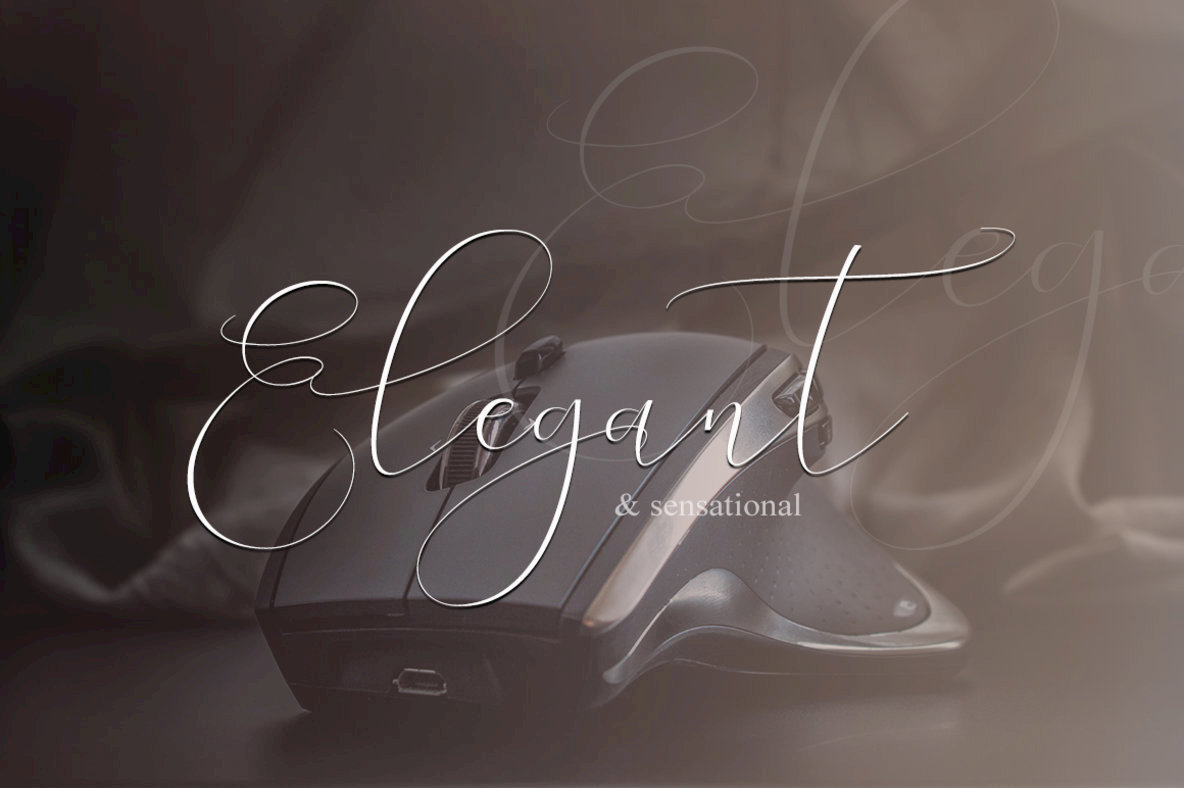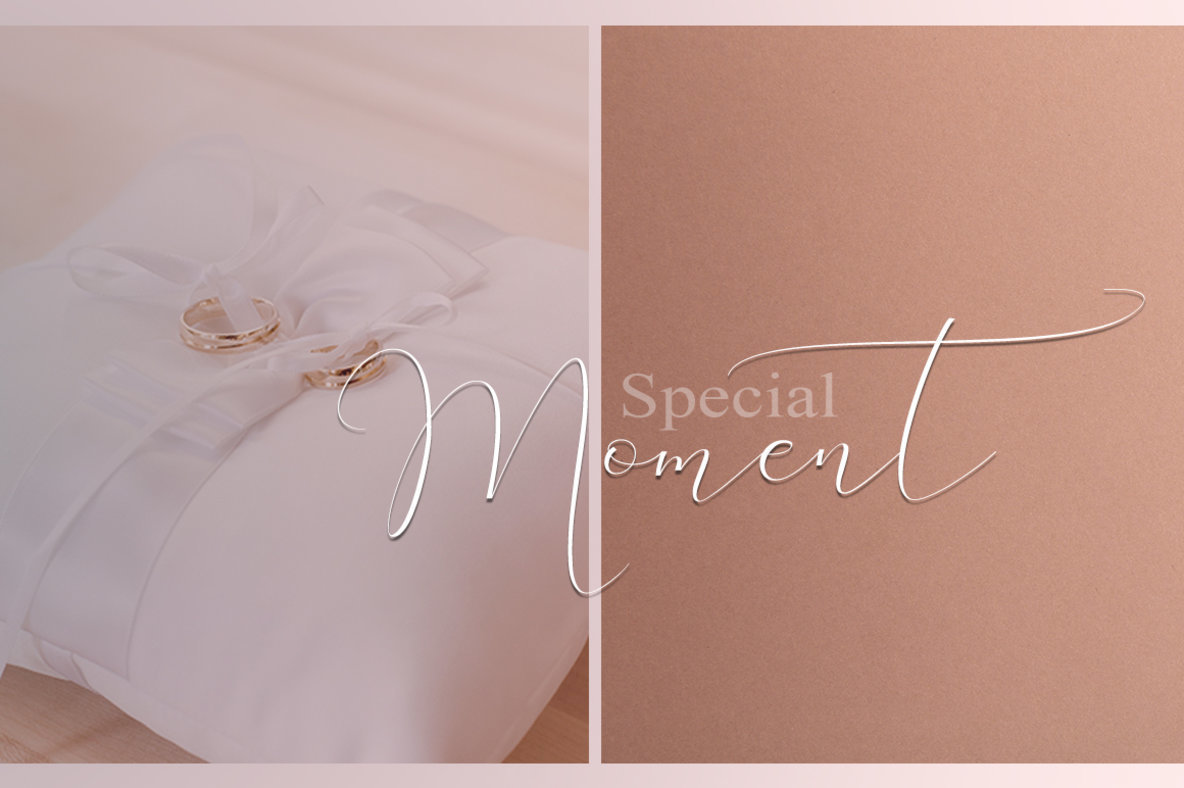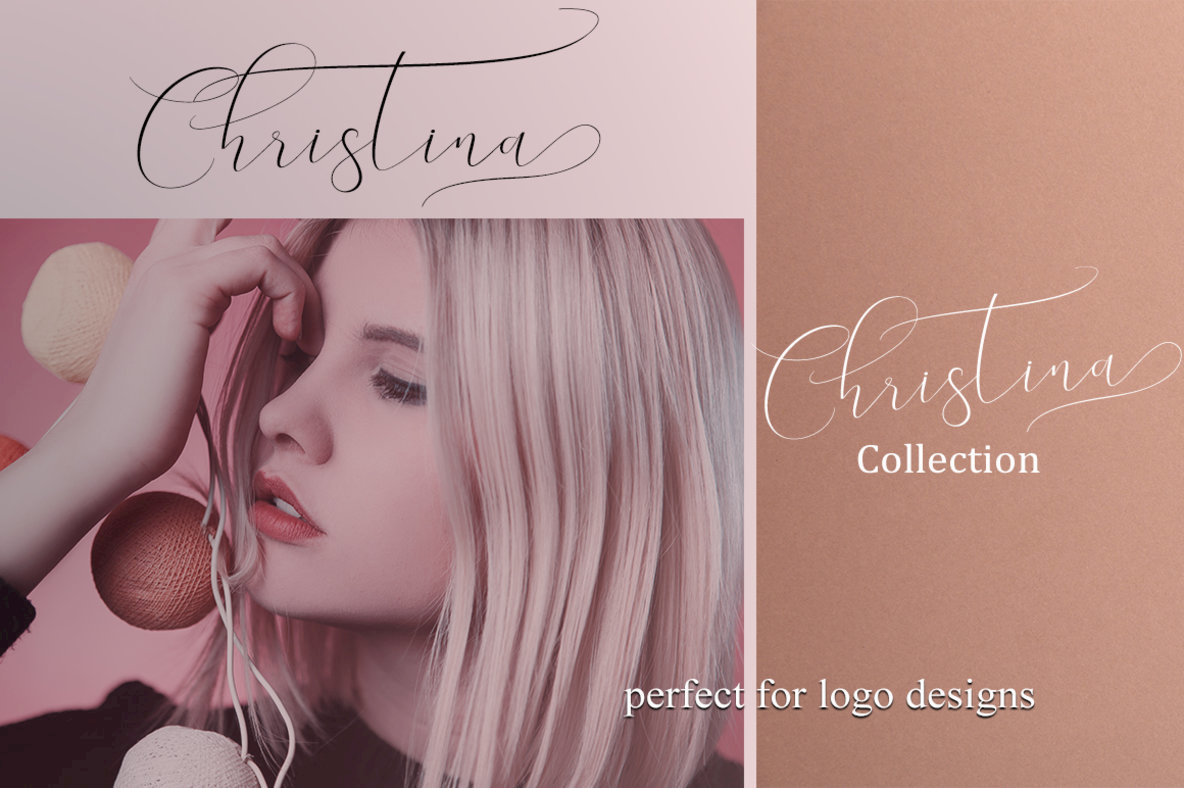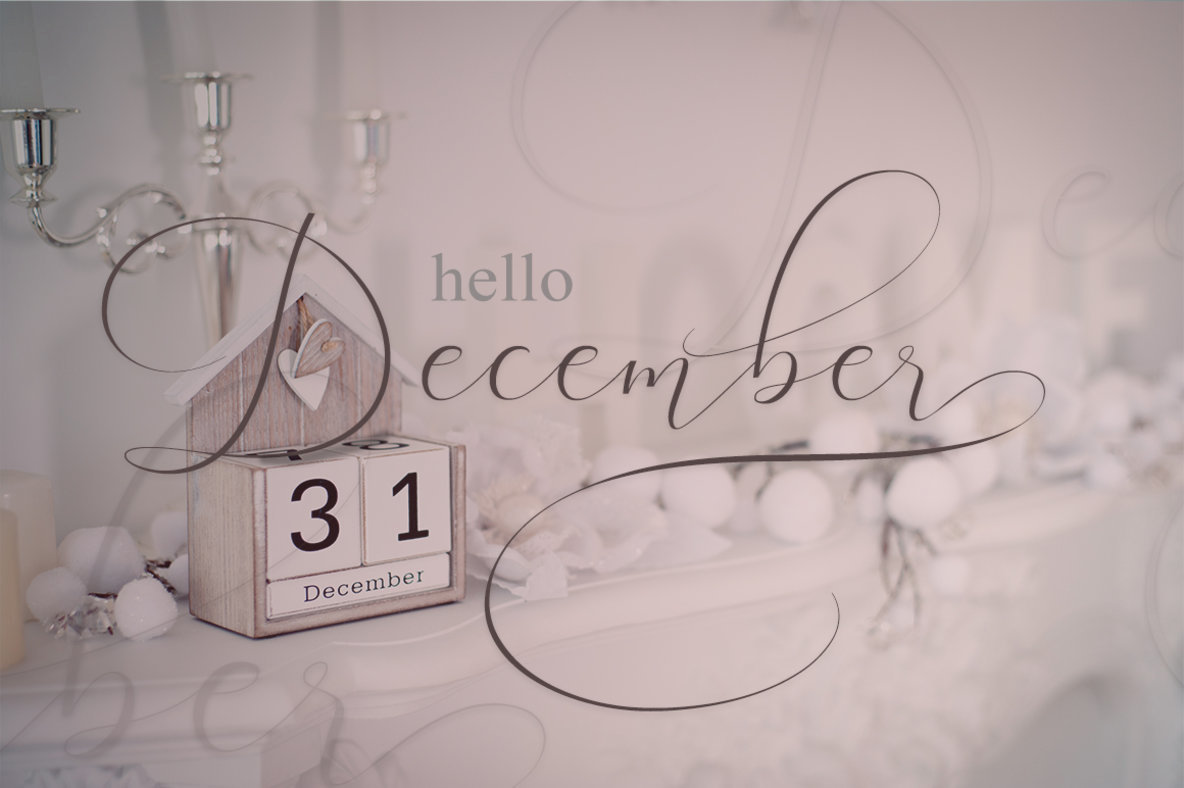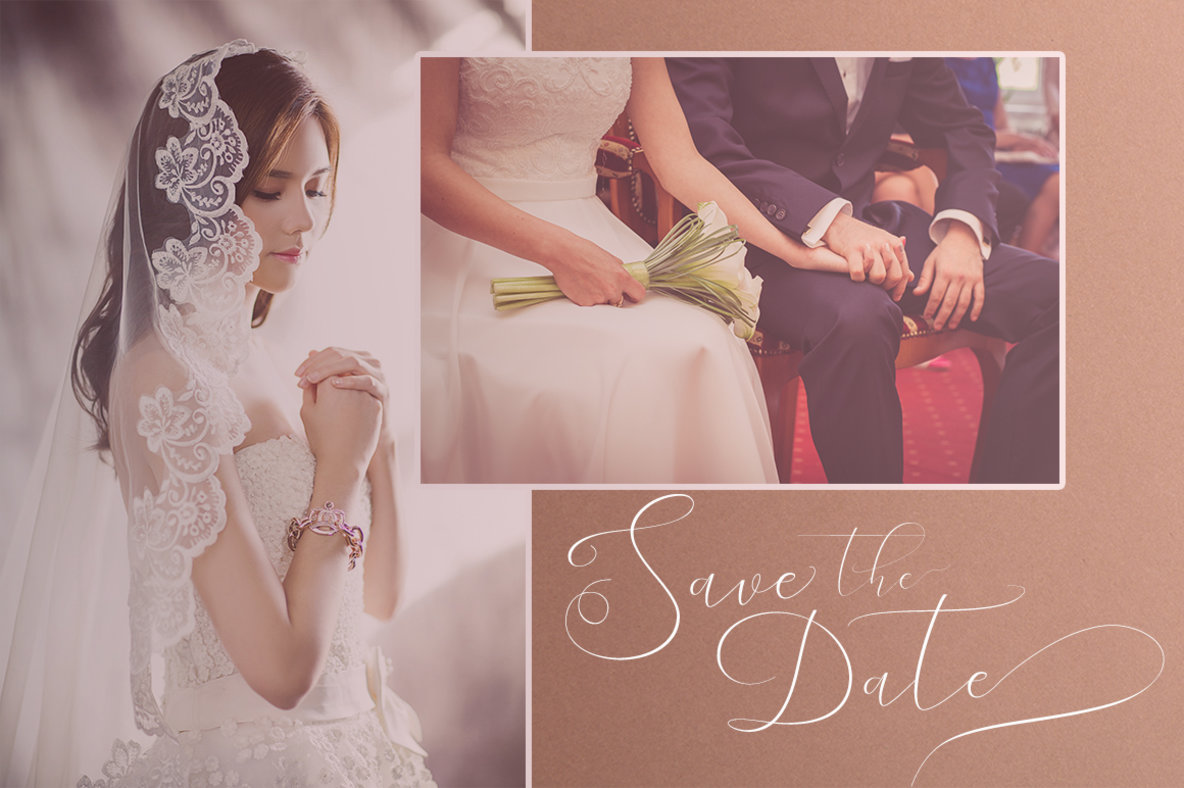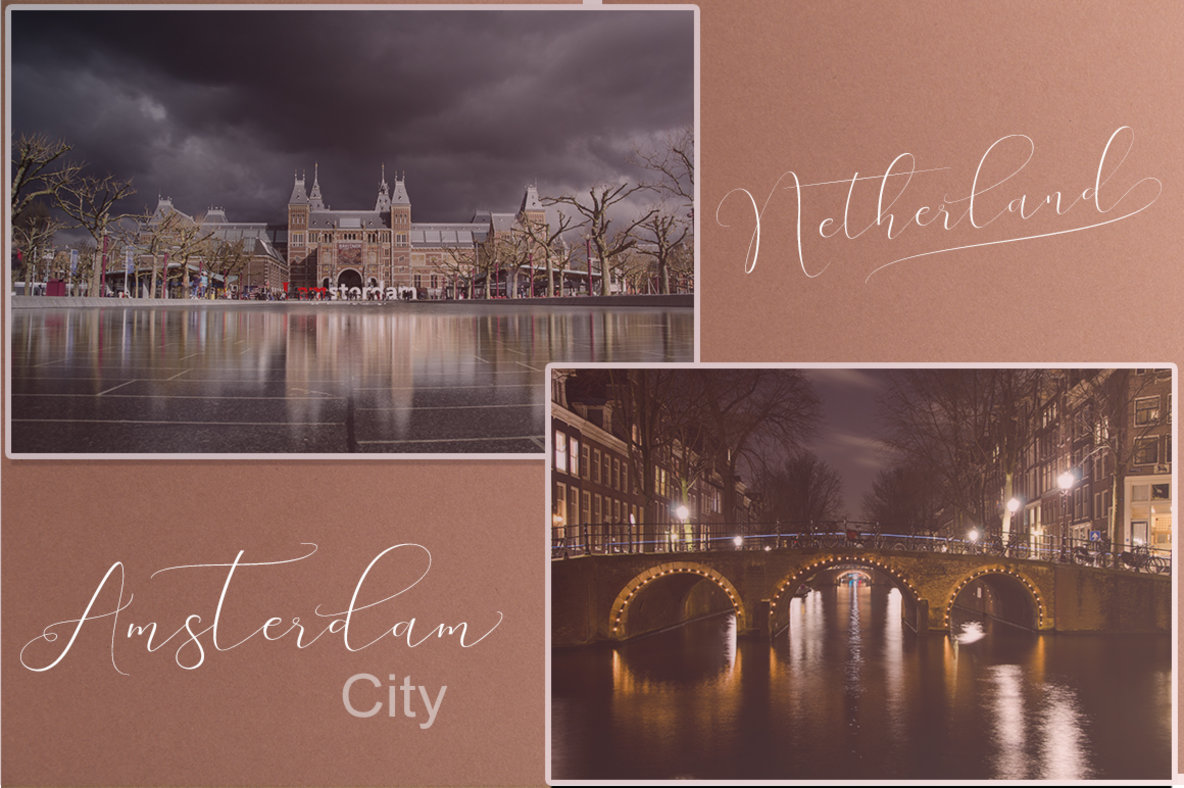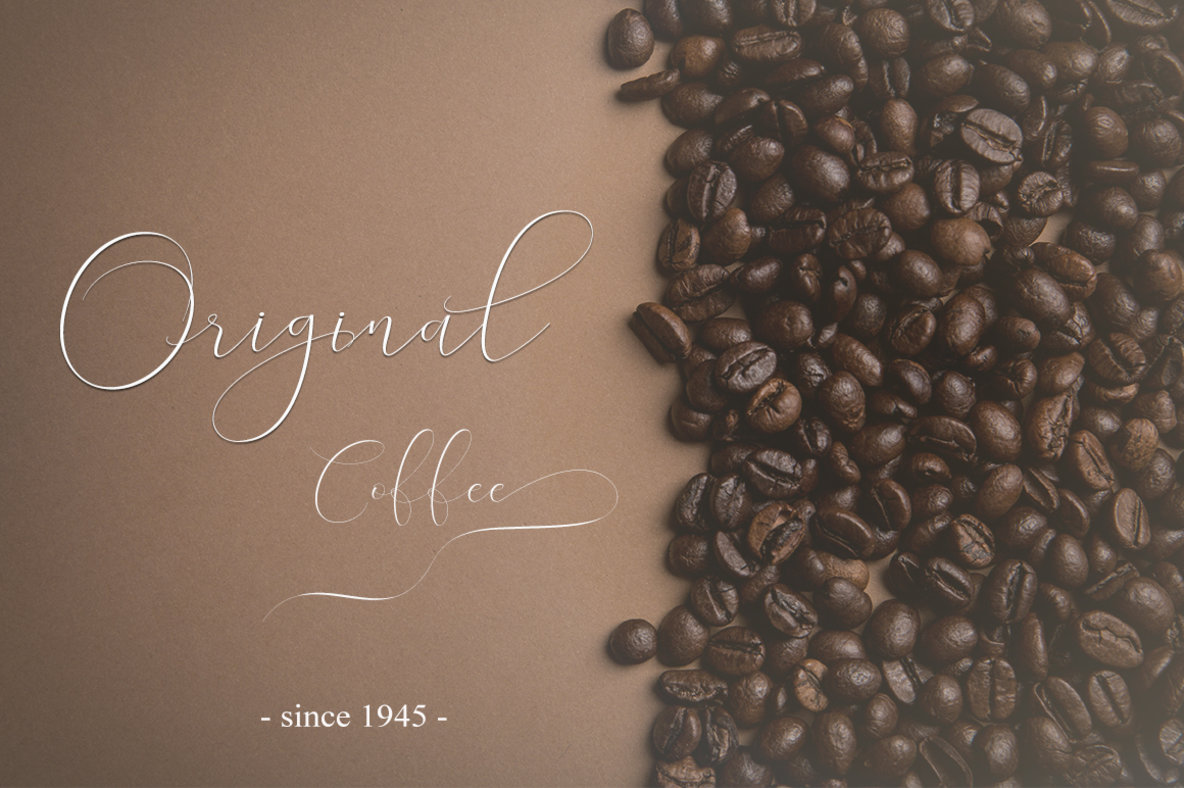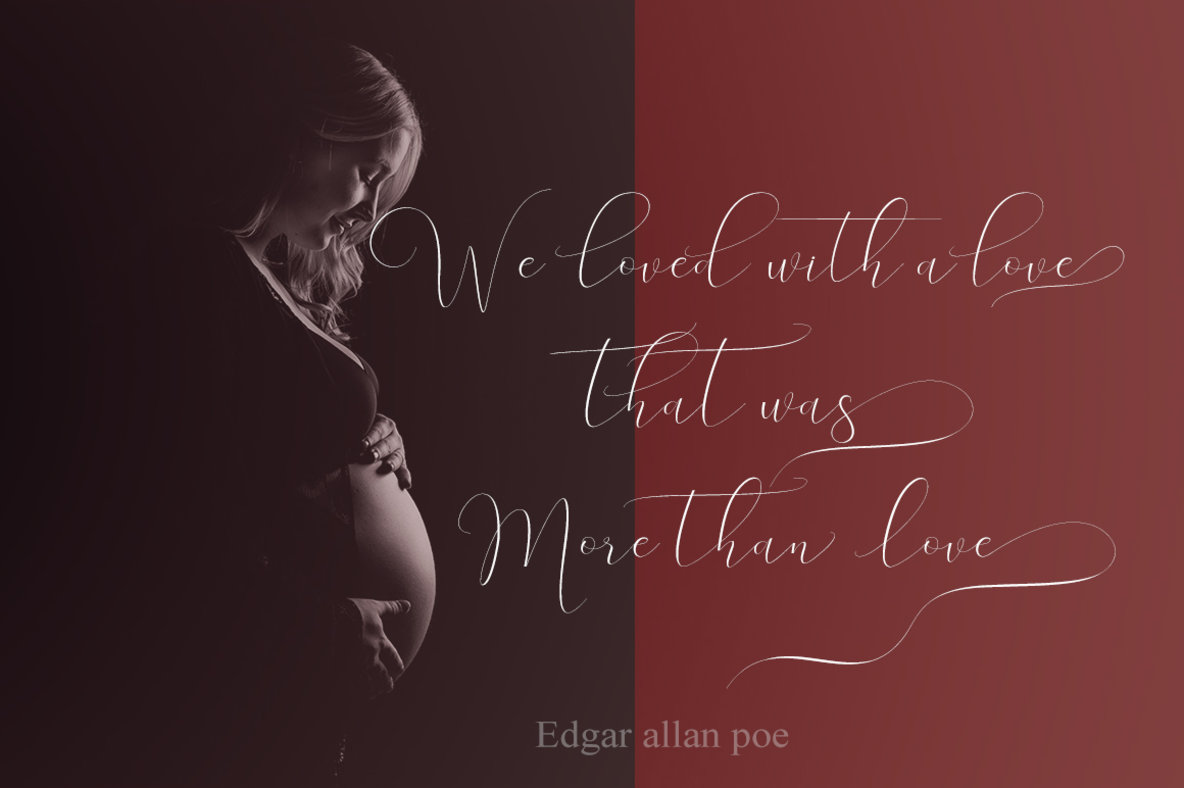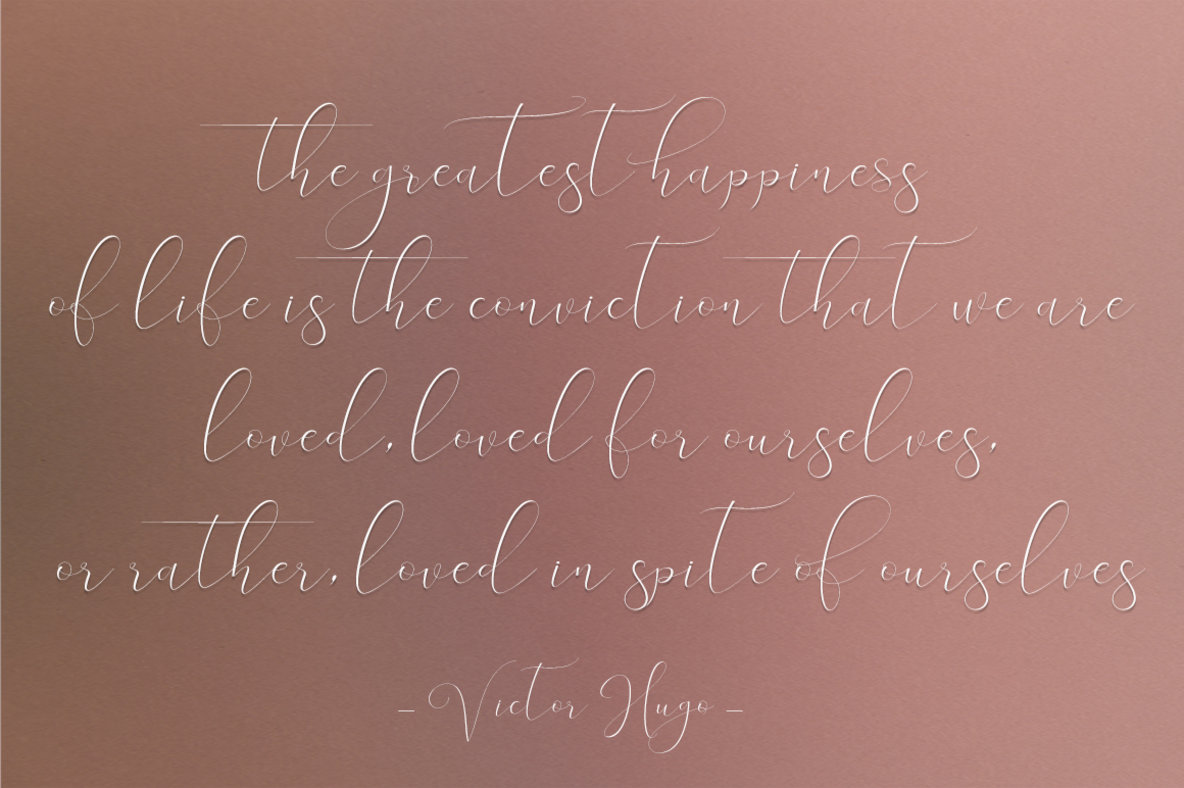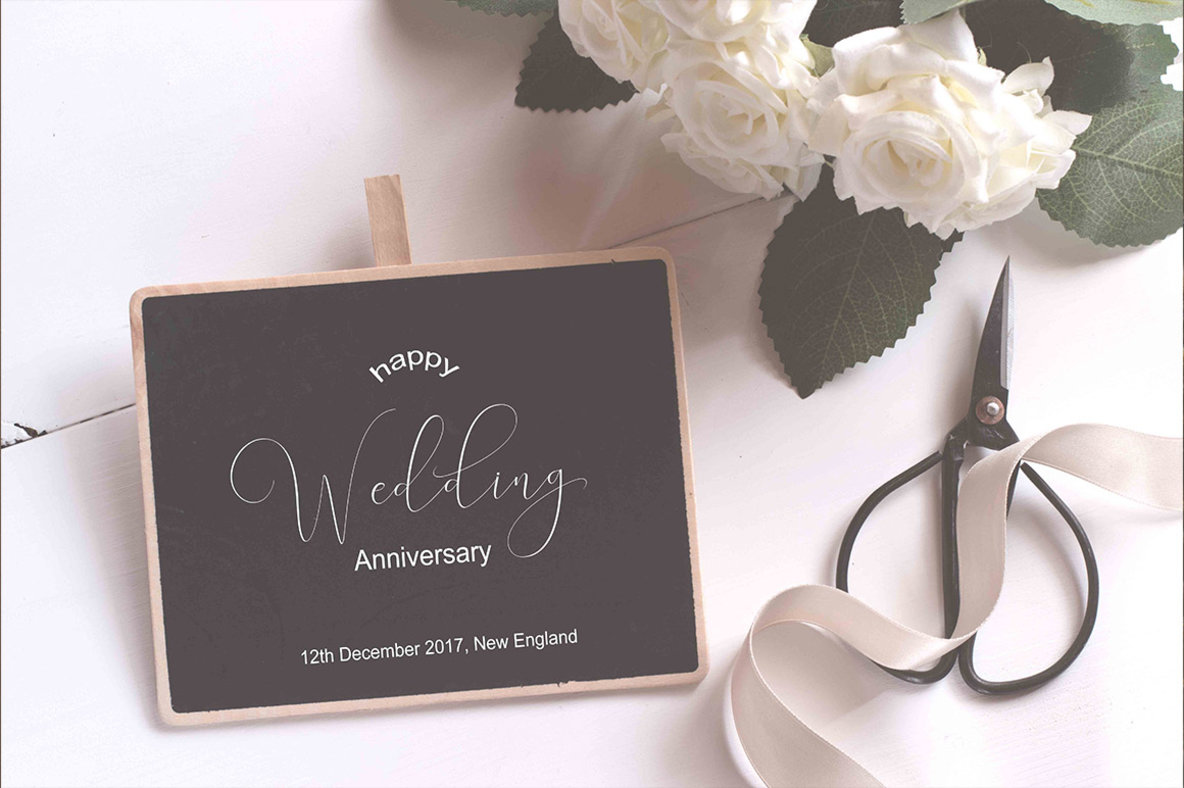
New England Script Font
Embrace the elegance of modern calligraphy with New England Script, a font that encapsulates the fluidity of current handwriting styles. Ideal for branding projects, wedding invitations, and more, its versatility extends across a range of applications, including magazines, mugs, business cards, quotes, and posters. New England Script is expansive, boasting an impressive collection of 670 glyphs. This abundance of characters offers extensive options for customization, allowing you to select variations that perfectly match your design preferences. Stay tuned for future updates, including bold and italic variations. These will be available to you as part of your purchase, with automatic notifications for easy access to the latest versions. To fully exploit the range of this font, ensure you're using a design program that supports OpenType features, such as Adobe's suite of creative tools or Corel Draw. For those without OpenType support, alternate glyphs can be accessed via Font Book on Mac or Character Map on Windows.New England Script: A Modern Calligraphy Font